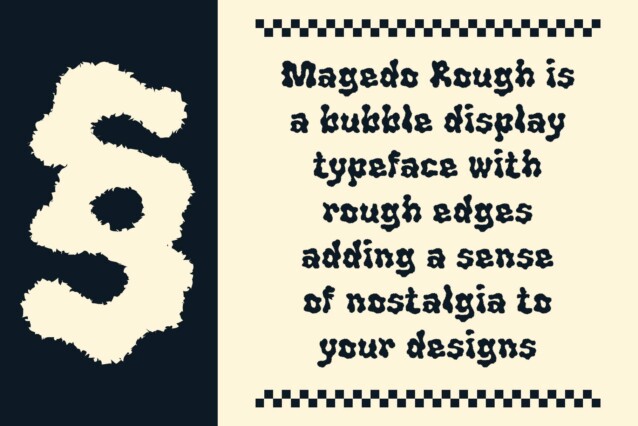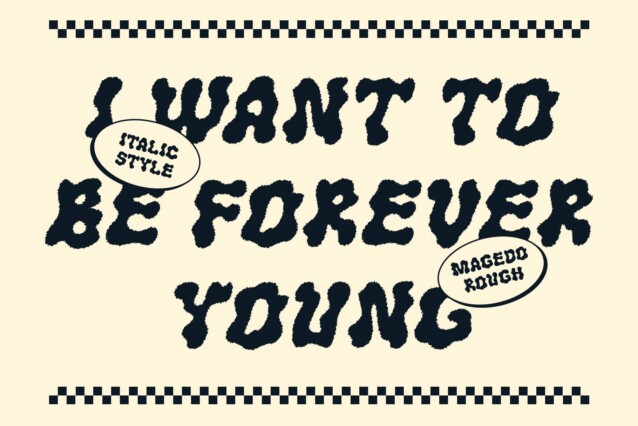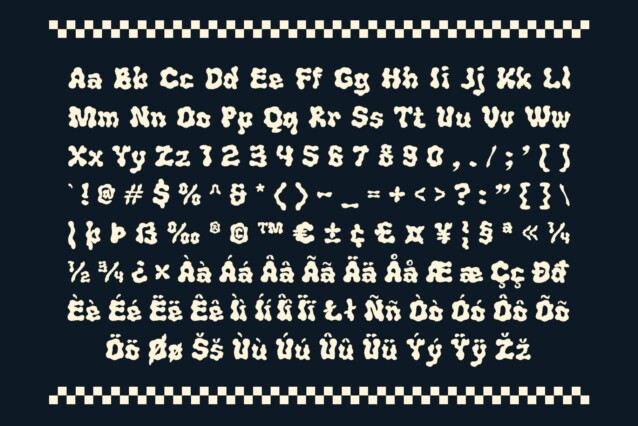
Magedo Rough Font
Magedo Rough Font is a display font that combines psychedelic shapes with a distinctive rough effect, resulting in a design that is both vibrant and expressive. The psychedelic form features swirling, unconventional letterforms that create an energetic and eye-catching appearance. Coupled with the rough effect, which introduces a rugged, uneven texture, the font gains an artisanal and dynamic quality that enhances its visual impact.